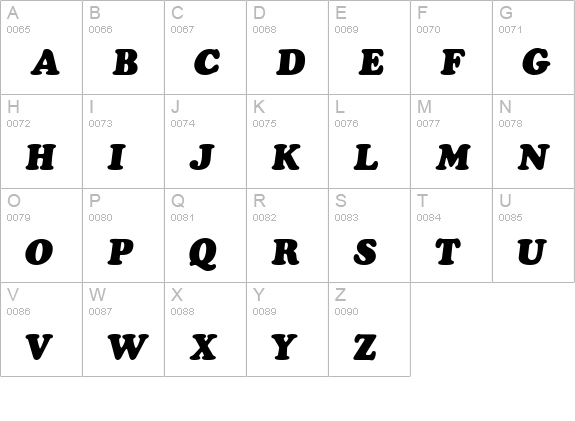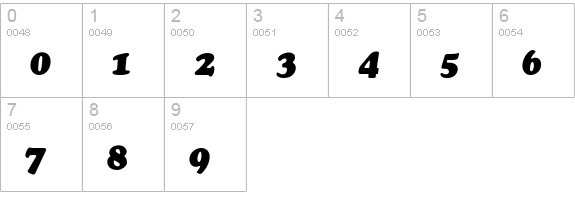
Cooper SSi Extra Black Italic Font Details
Cooper SSi Extra Black Italic is a maximum-weight, dramatic, italic variant in the Cooper typeface family \xE2\x80\x94 well suited to maximum-impact headlines, posters, and packaging.
Cooper SSi Extra Black Italic is a striking and bold font that exudes sophistication and modernity. Its sleek and stylish design makes it a perfect choice for adding a touch of elegance to any project. The italicized style adds a dynamic and eye-catching element, making text stand out with a sense of flair and finesse. What makes Cooper SSi Extra Black Italic even more appealing is that it is available for free download at FontsMarket.com. This means you can easily access this versatile and impactful font without any cost, making it a valuable addition to your design toolkit. Embrace the power and versatility of Cooper SSi Extra Black Italic to elevate your projects and make a lasting impression.